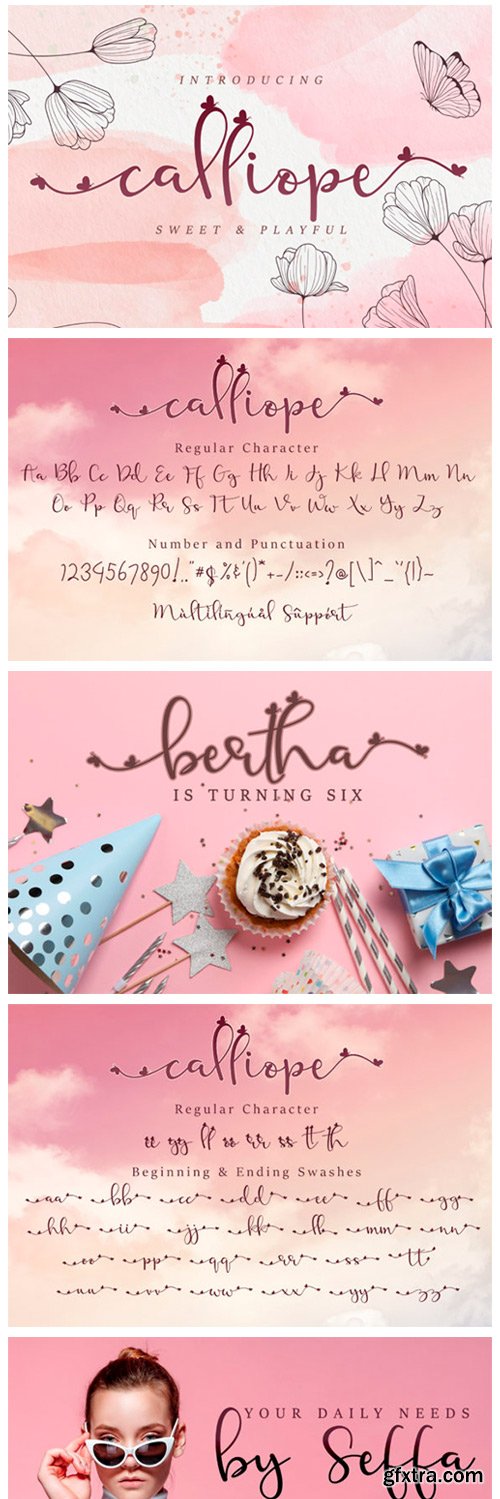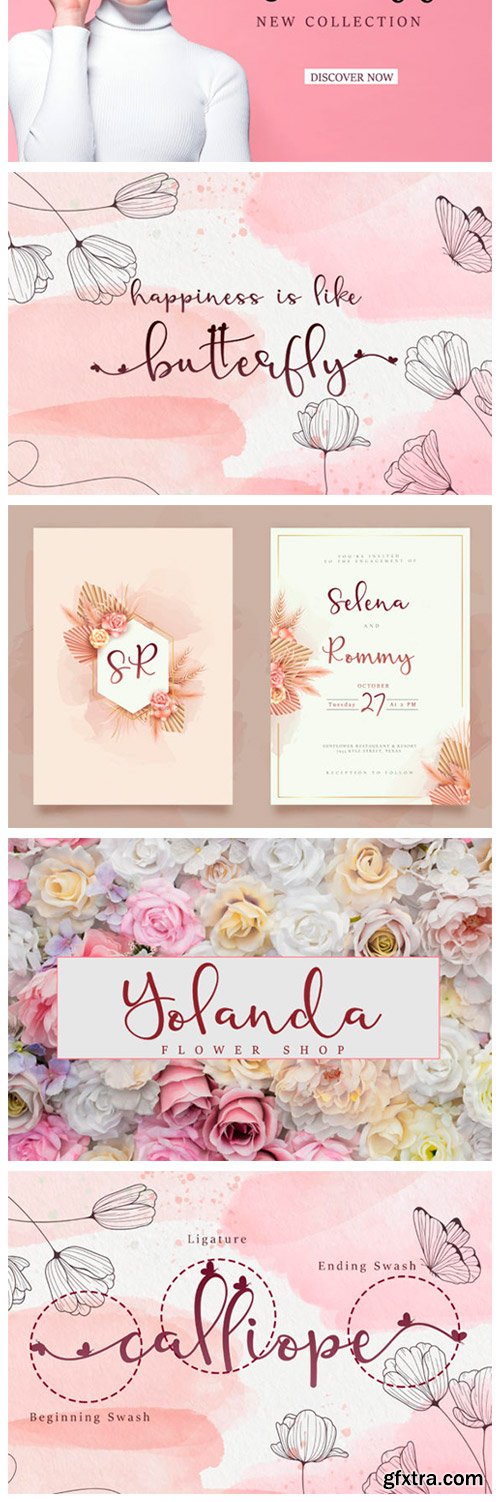
Calliope Font
Calliope is a sweet and playful script font with butterfly ornaments. It will looks stunning on wedding invitations, thank you cards, quotes, greeting cards, logos, business cards and every other design which needs a handwritten touch.